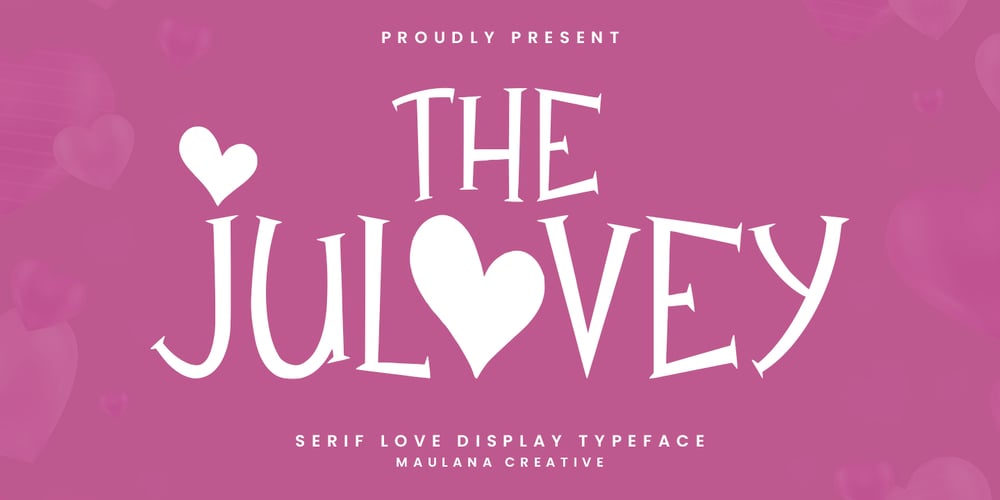
Julovey Font Family was designed by Gilang Maulana and published by Maulana Creative. Julovey contains 1 styles and family package options. Julovey serif love display font. With sharp bold stroke, fun character with a bit of ligatures and alternates. To give you an extra creative work. Julovey serif love display font support multilingual more than 100+ language. This font is good for logo design, Social media, Movie Titles, Books Titles, a short text even a long text letter and good for your secondary text font with script or serif. Make a stunning work with Julovey serif love display font. Cheers, Maulana Creative